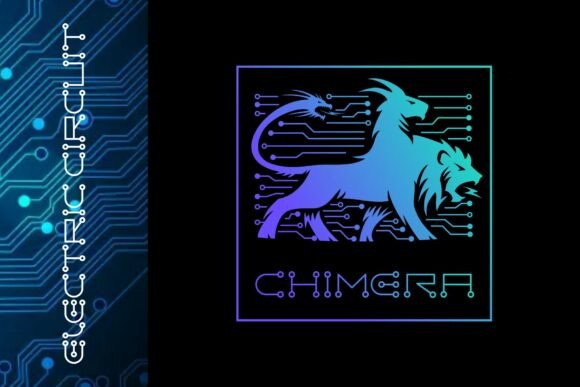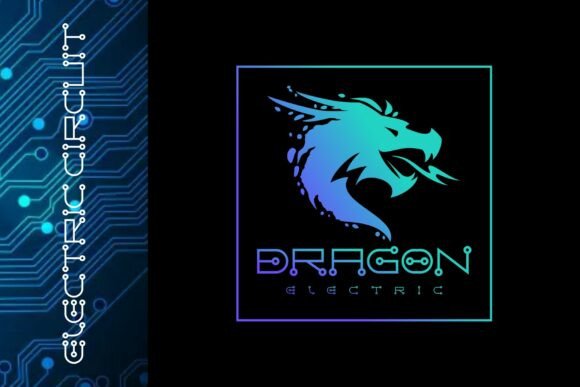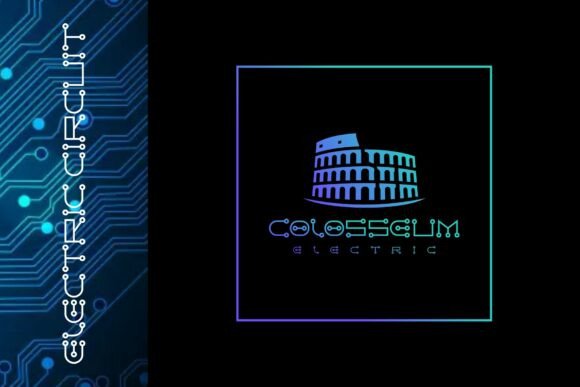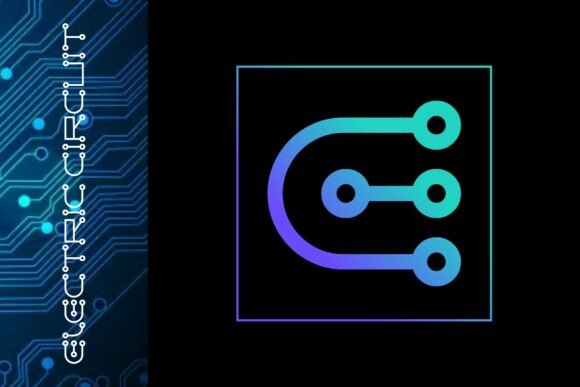
Circuit Electric Font: A Futuristic Display Font for Modern Designs
The Electric Circuit font has a very distinct “high-tech” energy. This font is a futuristic display font inspired by the intricate pathways of a printed circuit board (PCB). It features a unique, monolinear design where every letterform is constructed using geometric lines and terminal nodes (small circles), mimicking electrical connections.
The Inspiration Behind Circuit Electric Font
The Circuit Electric font draws its inspiration from the complex networks of a printed circuit board. PCBs are the backbone of modern electronics, providing a platform for connecting and supporting electronic components. The font’s design takes cues from the geometric lines, curves, and nodes that comprise these circuit boards, giving it a futuristic and high-tech aesthetic.
Key Features of Circuit Electric Font
• Monolinear Design: The font features a monolinear design, where every letterform is constructed using geometric lines of uniform width. This gives the font a clean, modern look.
• Geometric Lines and Nodes: The font is composed of geometric lines and terminal nodes (small circles), which mimic the connections and pathways found on a printed circuit board.
• Unique Letterforms: Each letterform in the Circuit Electric font is unique and carefully crafted to resemble the intricate pathways of a circuit board.
Uses of Circuit Electric Font
The Circuit Electric font is perfect for designs that require a futuristic and high-tech look. Some potential uses of this font include:
• Technology and Electronics Branding: The font’s high-tech aesthetic makes it ideal for technology and electronics brands looking to create a modern and innovative image.
• Web and Mobile App Design: The font’s clean and modern design makes it suitable for web and mobile app designs, particularly for tech-related applications.
• Print and Digital Media: The font can be used in print and digital media, such as posters, flyers, brochures, and social media graphics.
Benefits of Using Circuit Electric Font
Using the Circuit Electric font can bring several benefits to your designs:
• Instant Recognition: The font’s unique and futuristic design can help your brand or design stand out and gain instant recognition.
• High-Tech Aesthetic: The font’s high-tech aesthetic can help convey a sense of innovation and modernity.
• Versatility: The font can be used in a variety of design contexts, from digital to print.
Tips for Using Circuit Electric Font
To get the most out of the Circuit Electric font, follow these tips:
• Use it Sparingly: Due to its bold and futuristic design, it’s best to use the Circuit Electric font sparingly to avoid overwhelming the viewer.
• Pair it with a Neutral Font: Pair the Circuit Electric font with a neutral font to create contrast and balance in your design.
• Experiment with Colors: The font’s high-tech aesthetic can be further emphasized by using bright, bold colors.
Font Name Circuit Electric Font
Author Herulogo
The Circuit Electric font is a unique and futuristic display font that can add a touch of high-tech elegance to your designs. Its inspiration from printed circuit boards gives it a distinct and recognizable aesthetic that can help your brand or design stand out. By understanding the font’s features, uses, and benefits, you can effectively incorporate it into your designs and take advantage of its versatility.